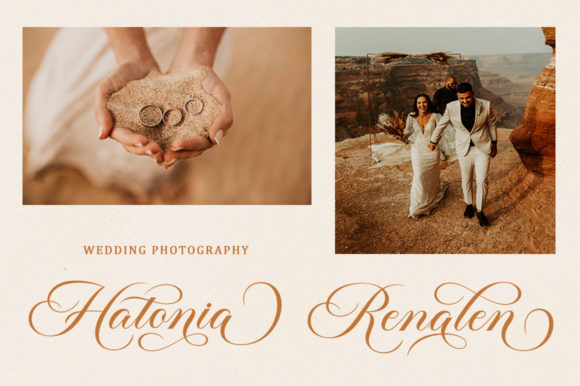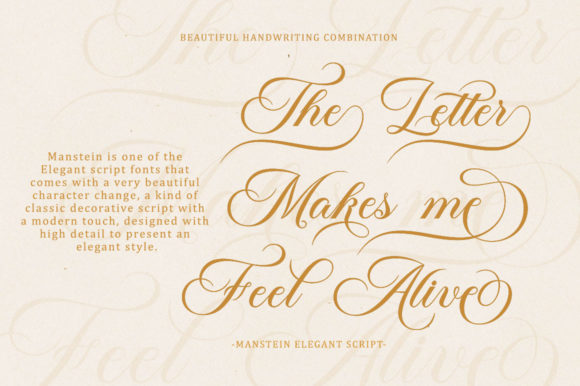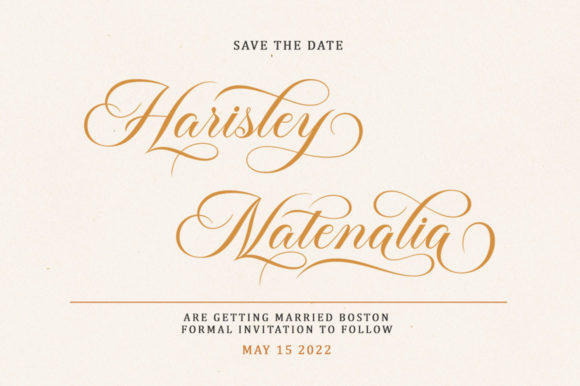
Manstein Font: Elegant Script Calligraphy for Wedding & Logo Design
About the Manstein Font
Unleash your creativity with Manstein Font, a versatile font perfect for a wide range of applications. Manstein is a stylish and slim script font. It is perfect for product packaging, branding project, magazine covers, social media, wedding, or just used to express words above the background.
Manstein’s elegant, slender forms shine in applications requiring a touch of sophistication. It excels in headlines, short text blocks on branding materials, and as an accent font for logos or packaging designs. Its delicate nature, however, makes it unsuitable for body text or lengthy paragraphs; readability suffers at smaller sizes.
Consider pairing Manstein with a clean sans-serif like Helvetica Neue for a modern contrast, or a warmer serif such as Garamond for a more classic feel. For a playful juxtaposition, a geometric sans-serif like Futura would create visual interest.
Manstein projects a refined, slightly feminine personality, ideal for brands focused on beauty, fashion, or luxury goods. Avoid using it in contexts requiring high readability or a strong, bold statement.
Manstein Font Usage Examples
Manstein Font Example